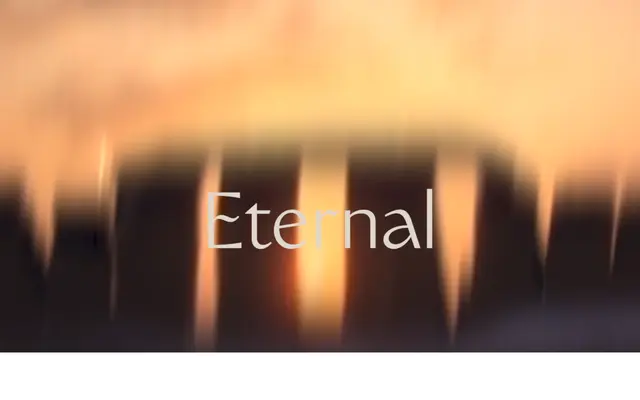
Monarch Nova
An unseriffed display face by Jacob Wise that channels Arts and Crafts nostalgia through flourished crossbars, calligraphic stroke contrast and a tall x-height, with stylistic sets to dial character up or down.
Originally published in 2017 and substantially redrawn in 2020 with assistance from Margot Lévêque, Monarch Nova received a further round of refinements and expansion in 2024. The typeface sits somewhere between rational sans and calligraphic ornament, with clean sharp strokes offset by flourished crossbars and open counters that give it a flamboyant yet controlled character. Multiple stylistic sets allow the more idiosyncratic qualities to be tempered for running text or amplified for display use.
Monarch Nova is an unseriffed display face with strong calligraphic cues, flourished crossbars and stroke contrast, drawing on Arts and Crafts and historical pastiche rather than any conventional grotesque or humanist tradition.